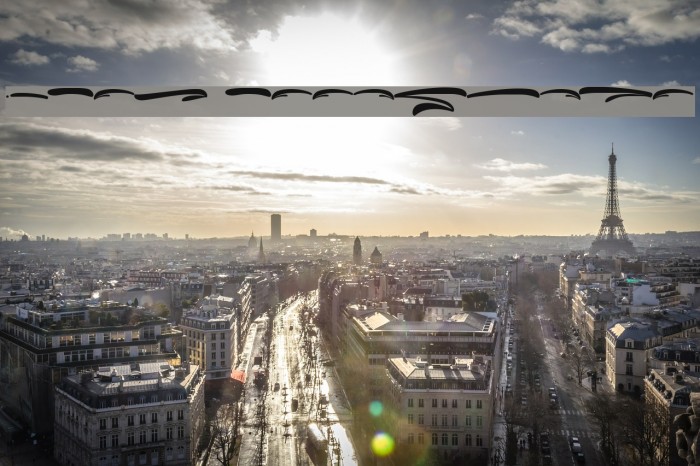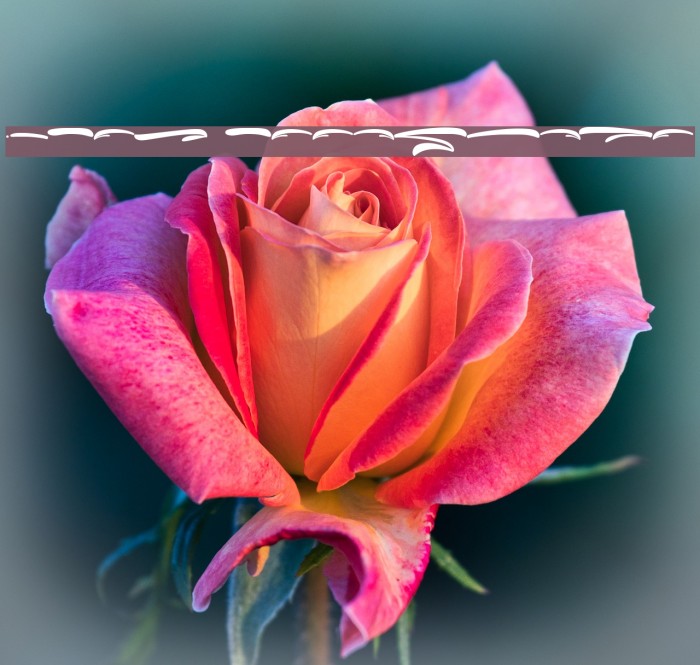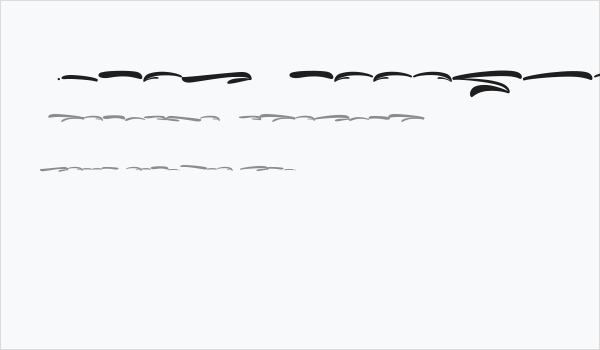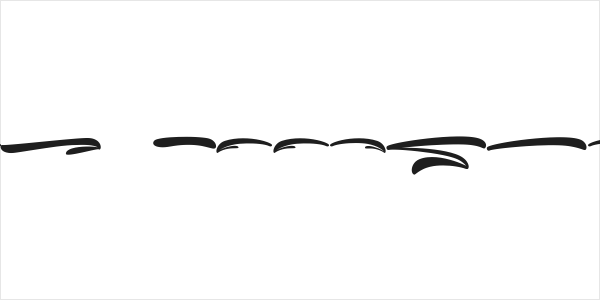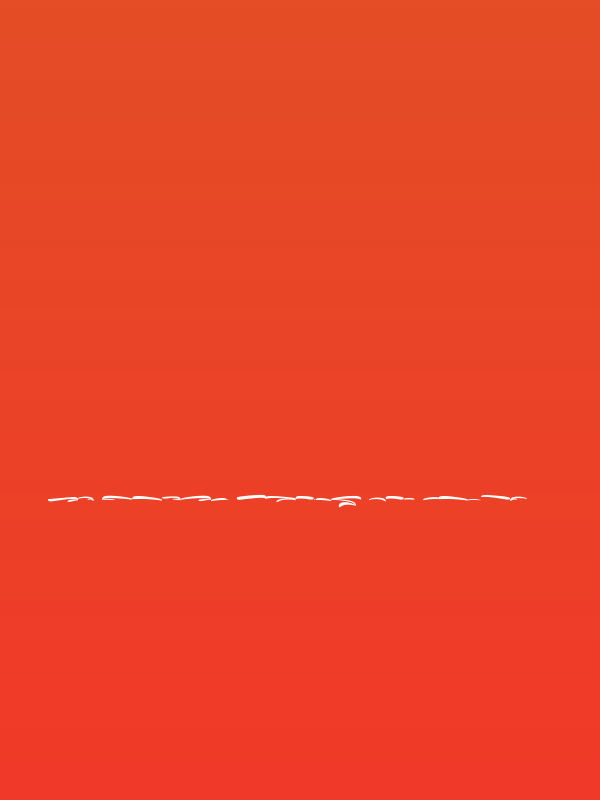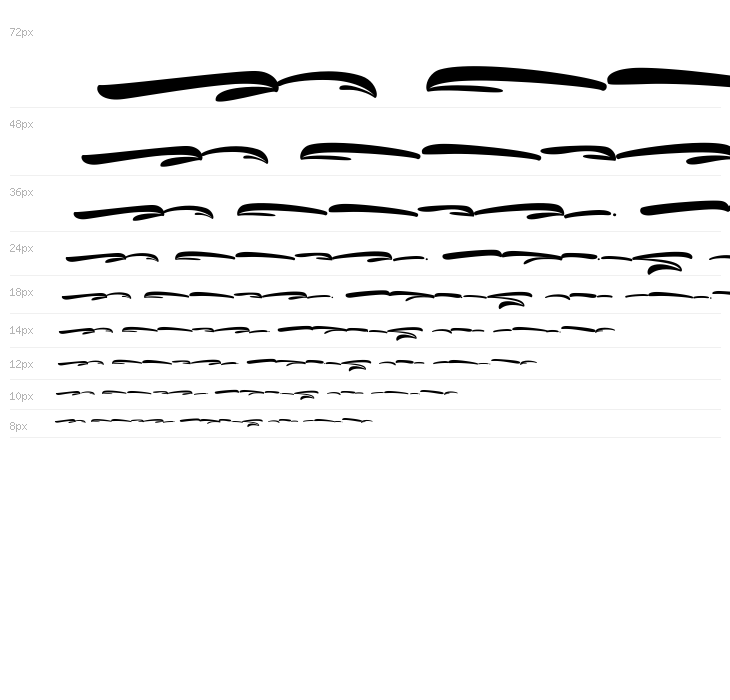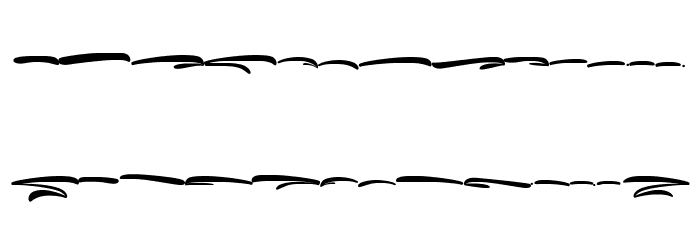
Swash Passengers Font
Swash Passengers Description
This font features an elegant and flowing script style, characterized by its swash elements that add a sense of movement and grace. The letters are connected in a fluid manner, creating a seamless and artistic appearance. The strokes vary in thickness, providing a dynamic contrast that enhances readability while maintaining an artistic flair. This font is ideal for projects that require a touch of sophistication and creativity, such as invitations, branding, and decorative purposes.
| Proposed Projects | Ideal for wedding invitations, elegant branding, artistic posters, and decorative designs. |